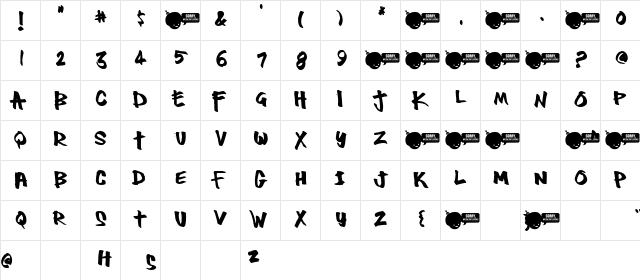
Thug Regular Font Preview
Thug Regular
Design Context for Thug Typeface
Thug is a composed and adaptable typeface that performs quietly and consistently across a wide range of design contexts.